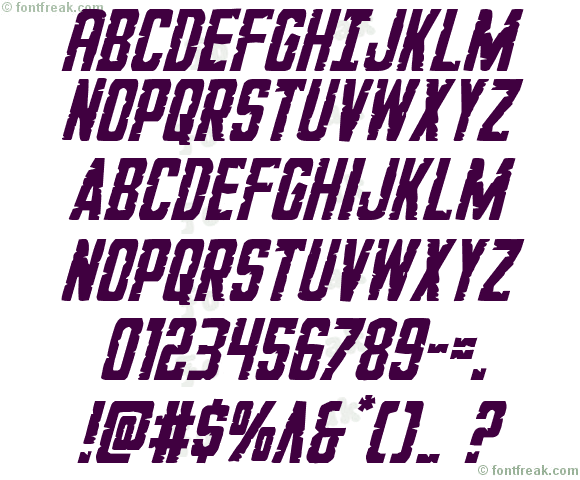
G.I. Incognito Expanded Italic
G.I. Incognito Expanded Italic, designed by Daniel Zadorozny, is a striking display font that falls under the category of decorative typefaces. This font showcases a unique blend of boldness and elegance, characterized by its expanded italic style. With sharp, angular strokes, the font has a strong presence that commands attention. The stroke weight is substantial yet balanced, providing a visually appealing contrast that enhances its readability. The spacing between letters is thoughtfully designed to maintain clarity while still conveying a sense of dynamism, making it an ideal choice for various design projects.
This font is perfect for a range of applications, including movie posters where dramatic flair is essential, restaurant menus that require a bold statement, and event flyers that aim to attract attention. Its distinctive look also makes it suitable for branding purposes, especially for businesses looking to convey a modern, edgy image. Graphic designers will find G.I. Incognito Expanded Italic particularly useful when aiming to create impactful visuals that stand out in a crowded market.
The target audience for this font includes graphic designers, small business owners, and content creators who are seeking a striking typeface that will elevate their projects. Whether you are designing a logo, creating promotional materials, or working on a website, this font can add a unique touch to your work.
What sets G.I. Incognito Expanded Italic apart is its ability to combine bold aesthetics with versatility. Its unique design elements allow it to shine in various contexts, making it a valuable addition to any designer's toolkit. For those interested in this eye-catching typeface, a G.I. Incognito Expanded Italic font free download is available, allowing you to explore its potential in your creative endeavors.